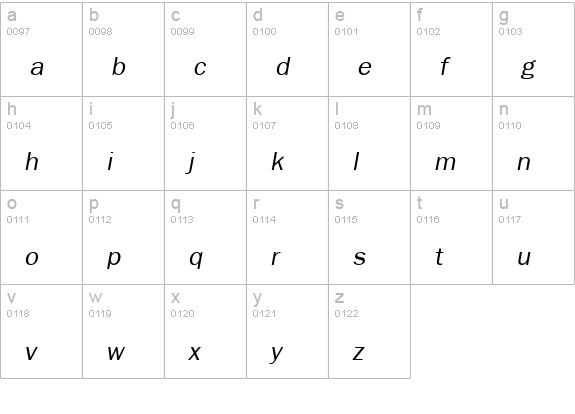
FreesiaUPC Italic is a distinctive, italic variant in the FreesiaUPC typeface family \xE2\x80\x94 well suited to design and typography projects.
FreesiaUPC Italic font is a beautifully crafted typeface that exudes elegance and sophistication. Its sleek and slender design adds a touch of modernity to any project, making it perfect for use in branding, editorial design, and more. The italic style of FreesiaUPC adds a dynamic and stylish flair to your text, making it stand out while maintaining a sense of professionalism. What sets FreesiaUPC Italic font apart is that it is available for free download at FontsMarket.com. This means you can easily access and use this stunning typeface in your projects without any cost. Whether you're a designer looking to elevate your work or a business owner wanting to enhance your branding, FreesiaUPC Italic font offers a versatile and high-quality solution that won't break the bank. Download it today and add a touch of sophistication to your designs!